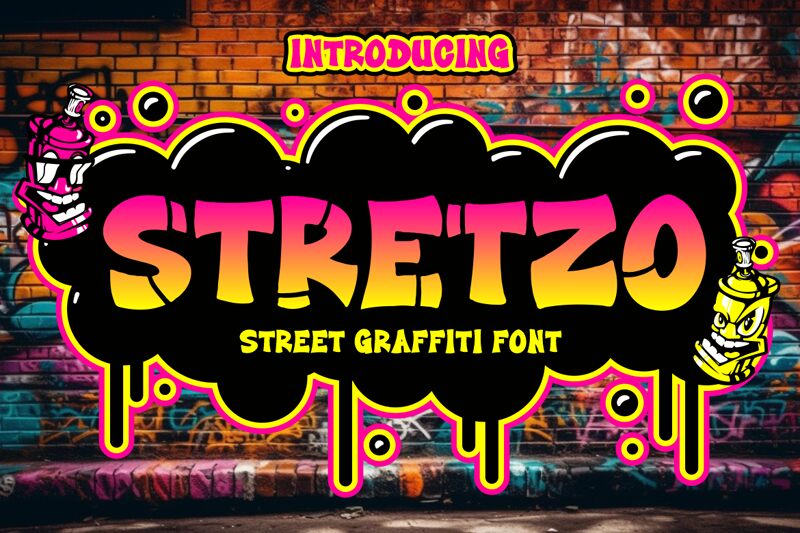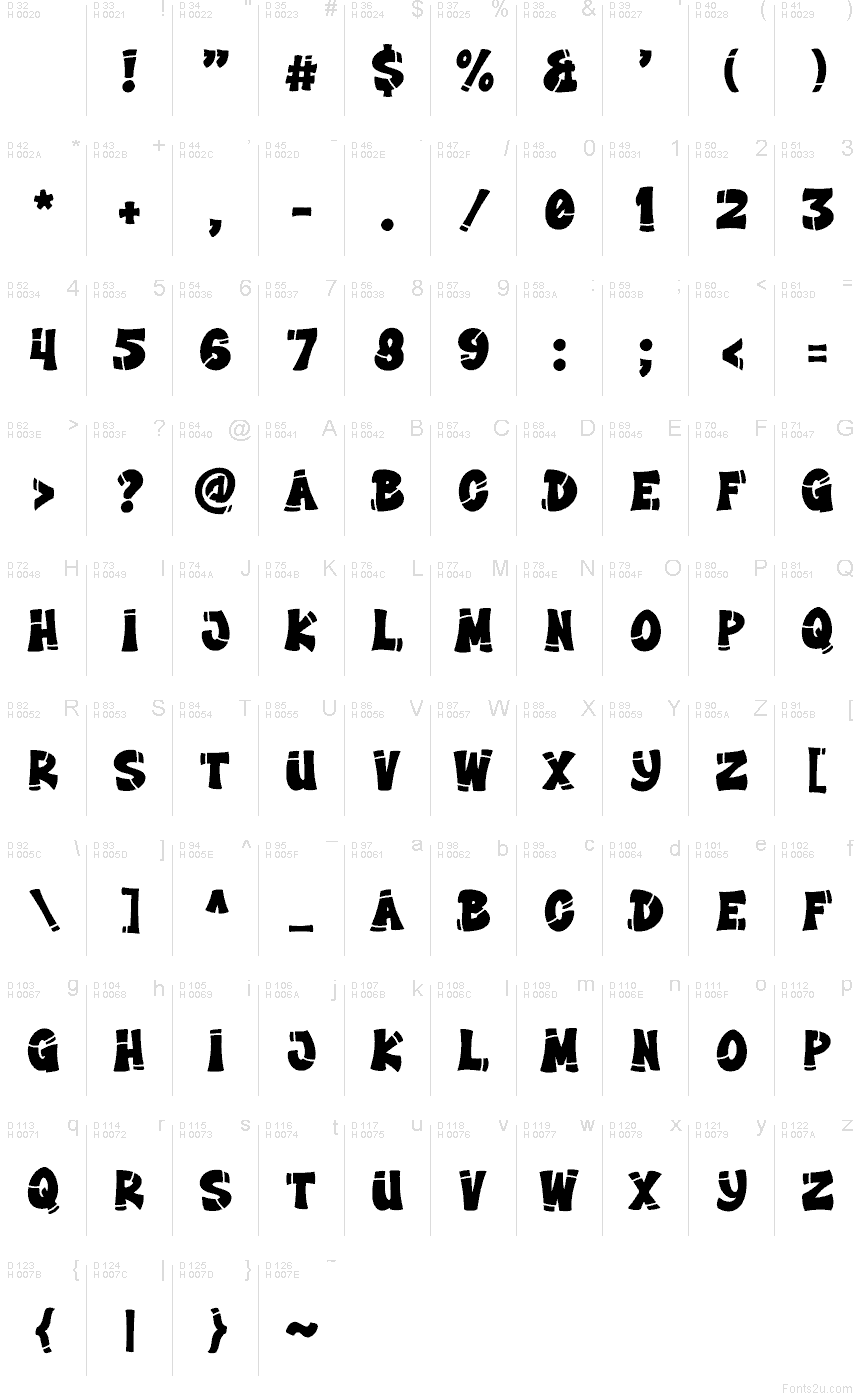
Stretzo Display
Stretzo Display by Shanaf Studio is a free graffiti caps font with a loud street-poster pulse. The letters feel swollen and hand-pushed, with chunky silhouettes, uneven curves, and sharp cut-in breaks that make the wordmark look tagged, pasted, and weathered all at once.
This free font fits skate branding, mixtape covers, event flyers, title cards, and hoodie graphics where a rough urban voice matters more than polish. It also works for short headlines and monograms, since the caps are dense and punchy, and those split shapes keep the lettering active even in just a few characters.